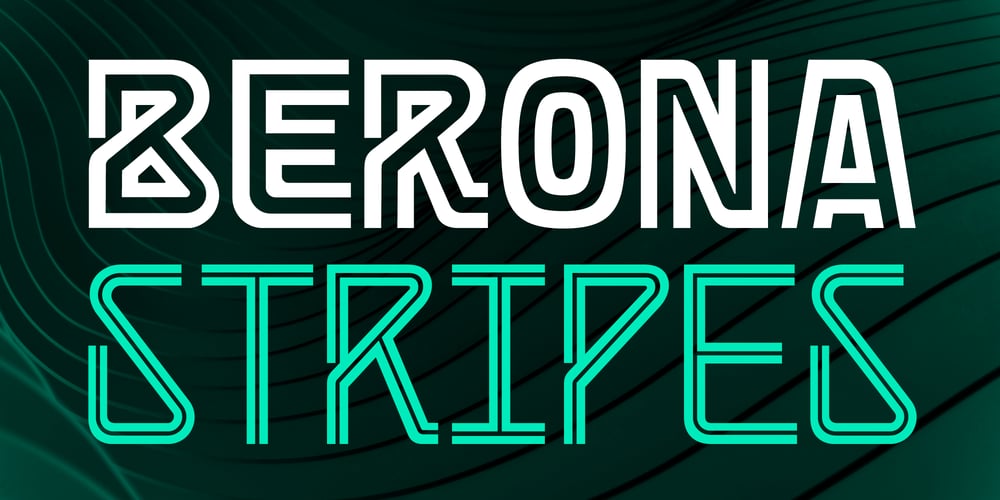
Berona Stripes Font Family was designed by Alex Camacho and published by Alex Camacho Studio. Berona Stripes contains 10 styles and family package options. Berona Stripes font family is a variable geometric sans serif based on the solid version of Berona family.A variable geometric sans serif with a modern display purpose. The dynamic sharp edges makes it ideal to be used in a medium and big scale.